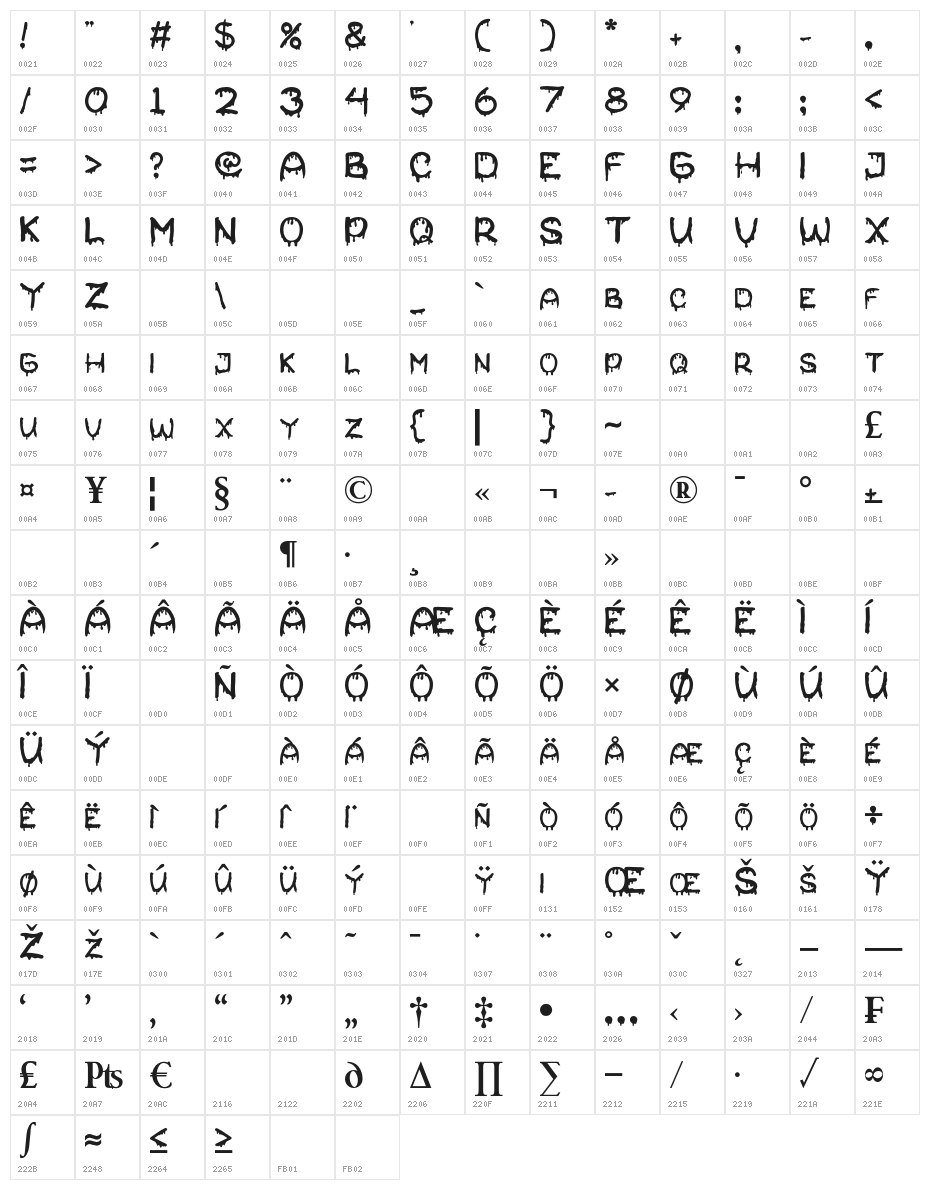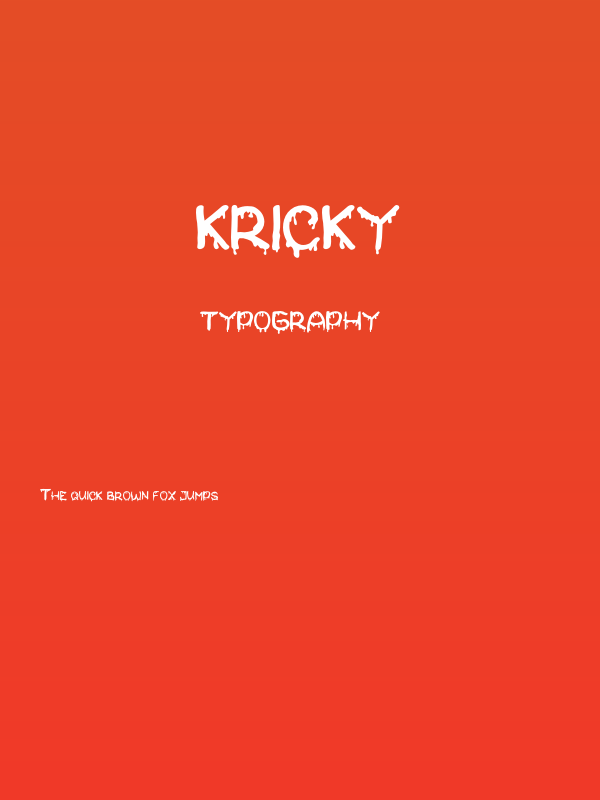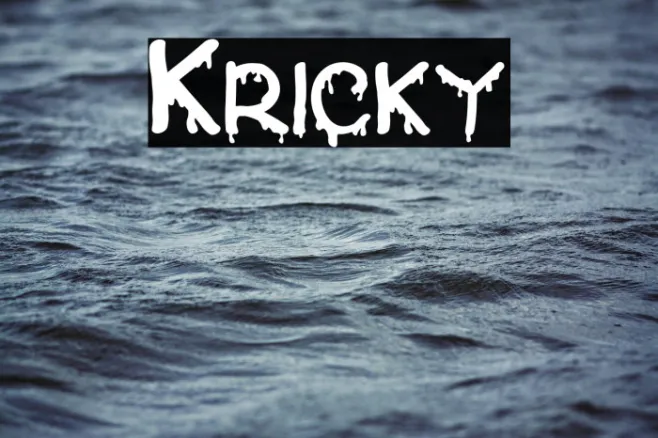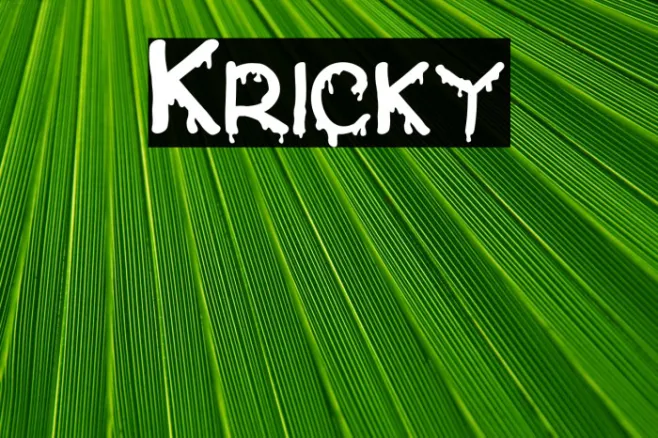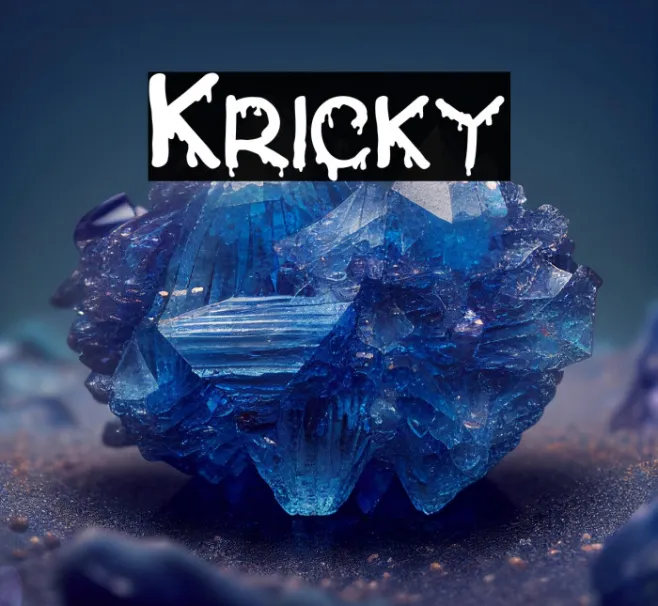
Kricky Font
Kricky Description
This font features a unique and eye-catching design with a dripping effect that gives it a spooky, liquid-like appearance. The characters are bold and have a playful yet eerie style, making them perfect for Halloween-themed projects or anything requiring a touch of the macabre. The uppercase and lowercase letters maintain consistency in their dripping motif, while the numbers and special characters follow suit, ensuring a cohesive look across all text. The font's distinct style is both decorative and thematic, ideal for creating standout headlines or themed graphics.
| Use Case | Headlines, Logos, Themed Graphics |
| Proposed Projects | Ideal for Halloween invitations, horror movie posters, themed party decorations, and graphic design projects requiring a spooky touch. |